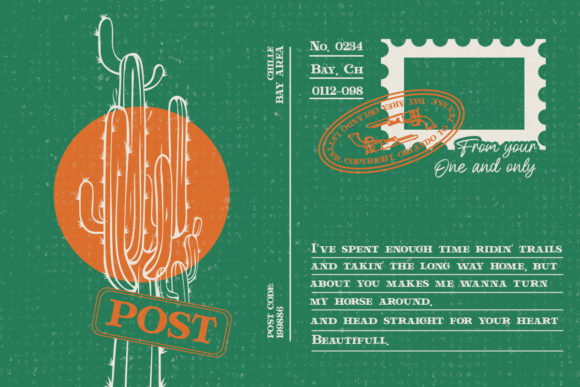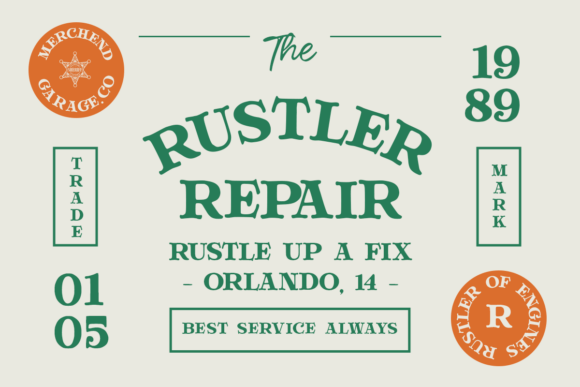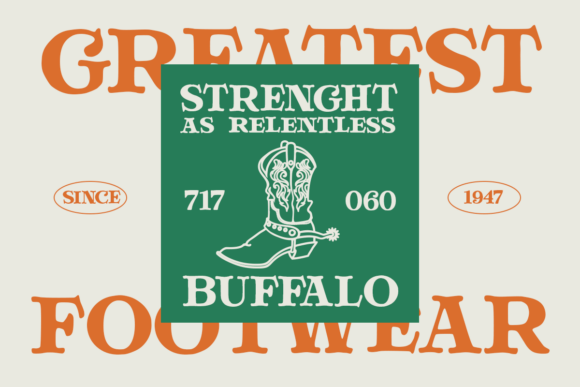
Introduction to Kolgu Font
Kolgu – Heritage Serif Typeface Kolgu is a classic serif font with a timeless vintage aesthetic, blending elegance and bold character.
Ideal for heritage branding, editorial design, packaging, book covers, and sophisticated typography, it brings a refined and unique touch to any project .
Why Choose Kolgu Font?